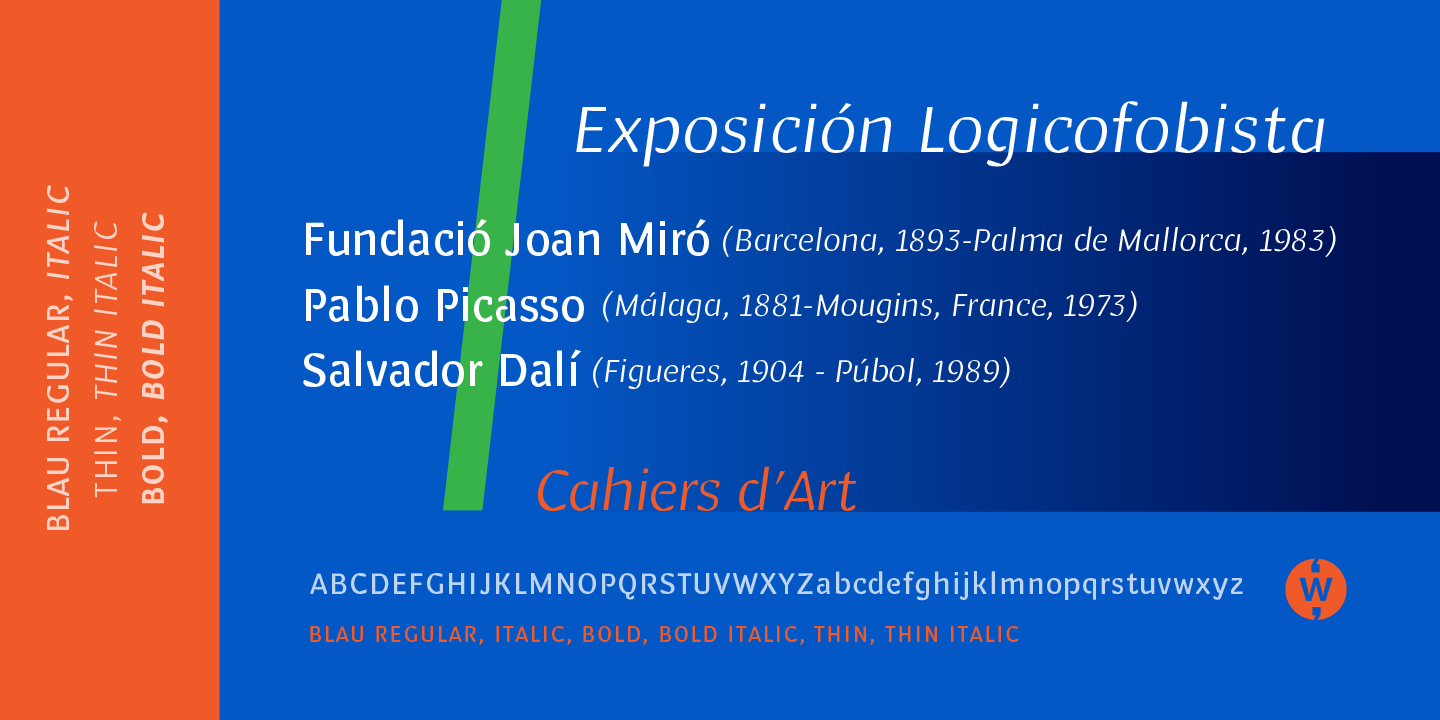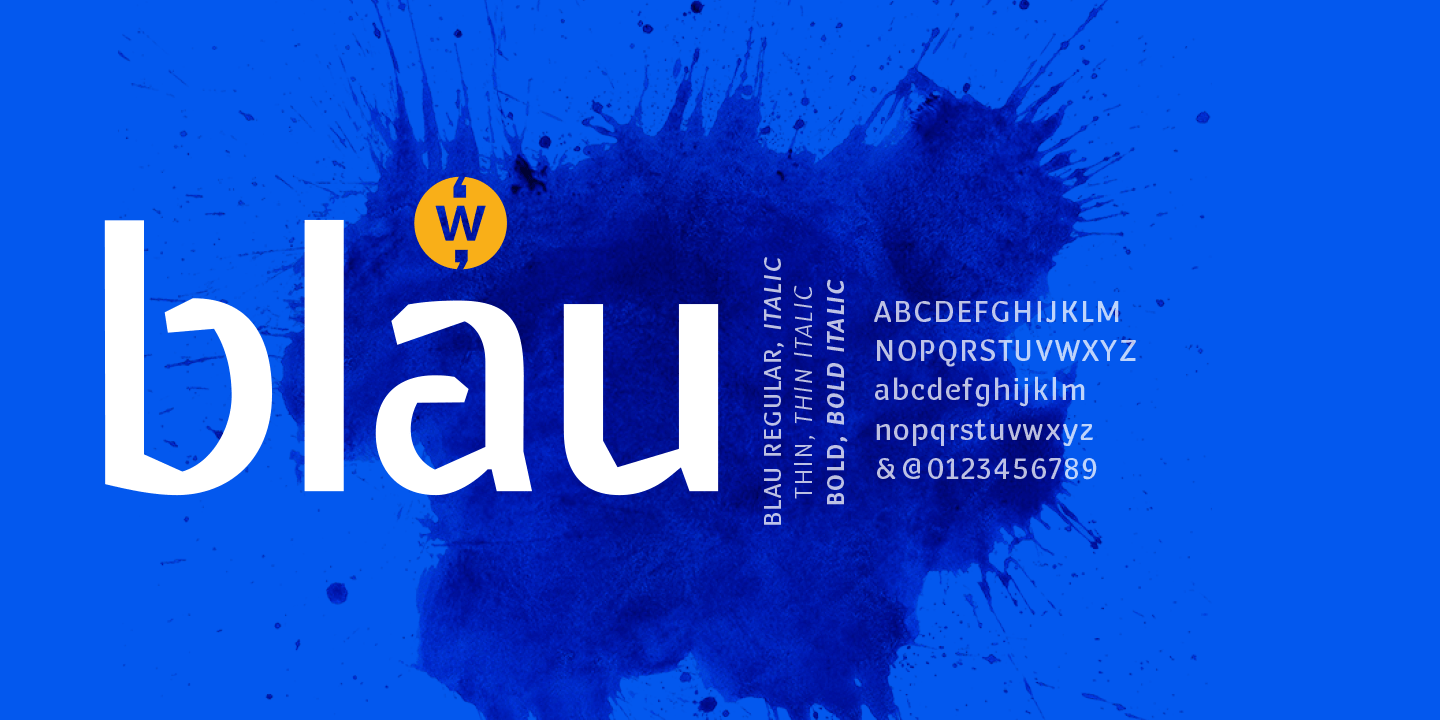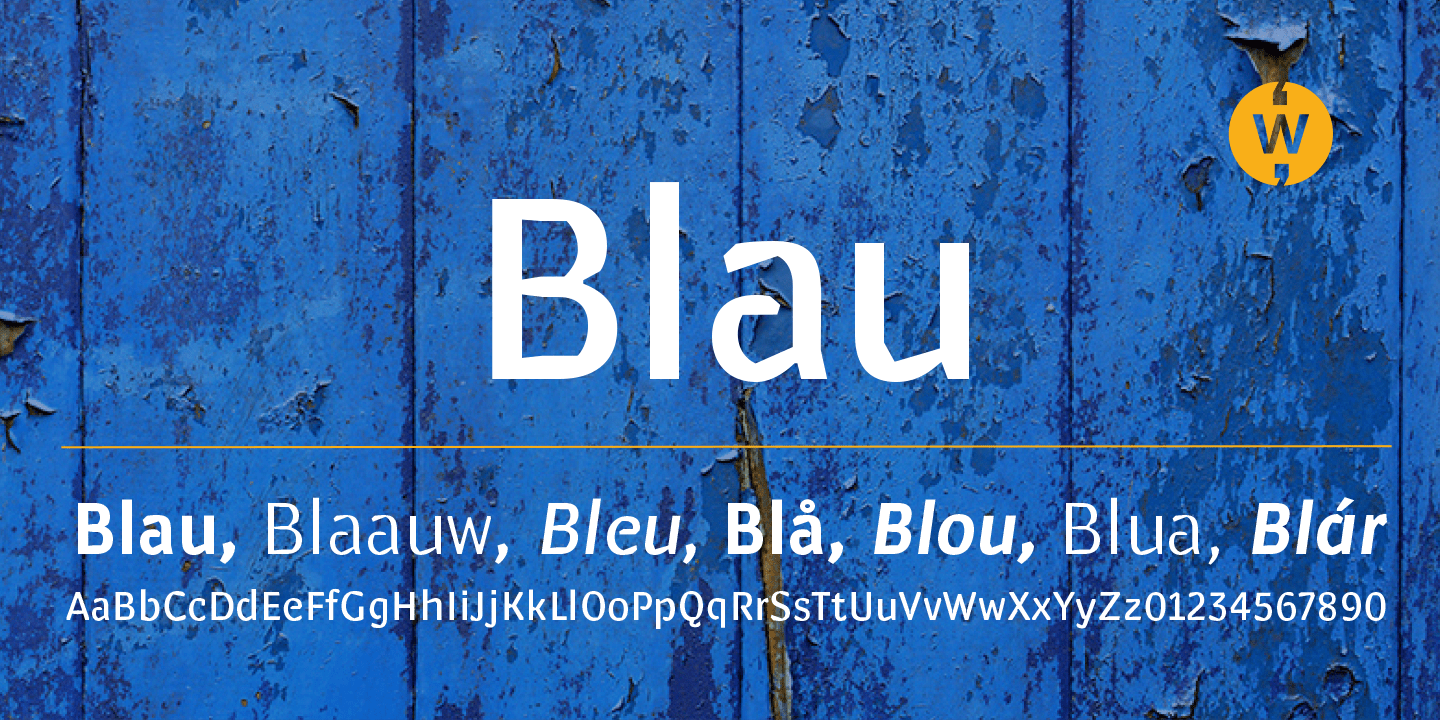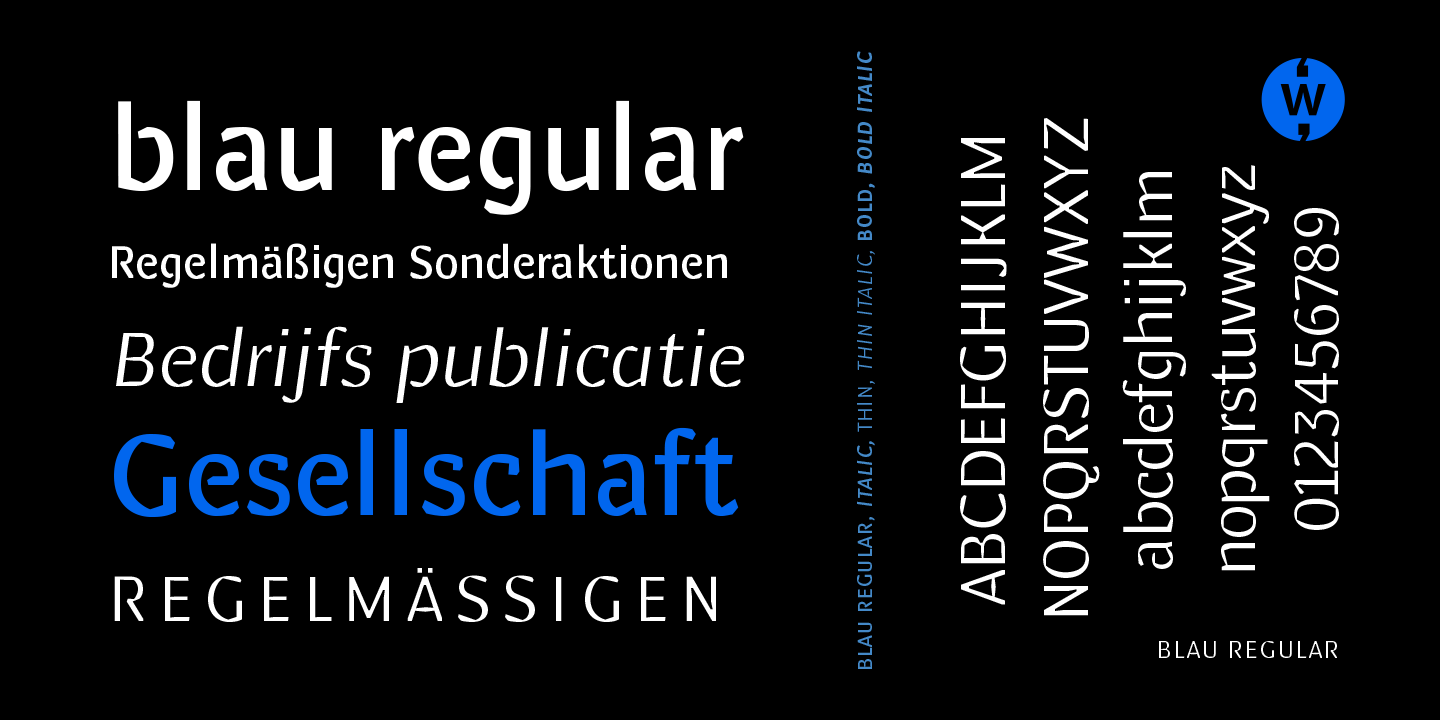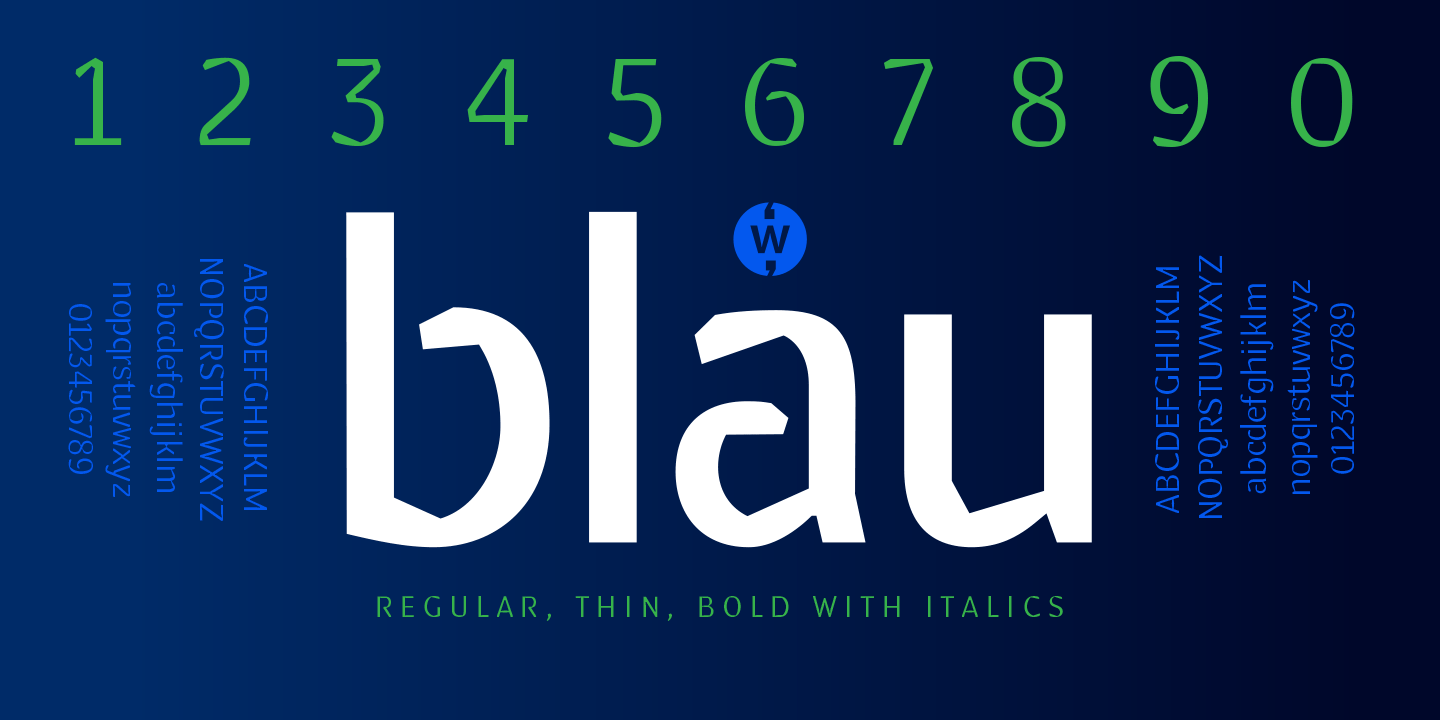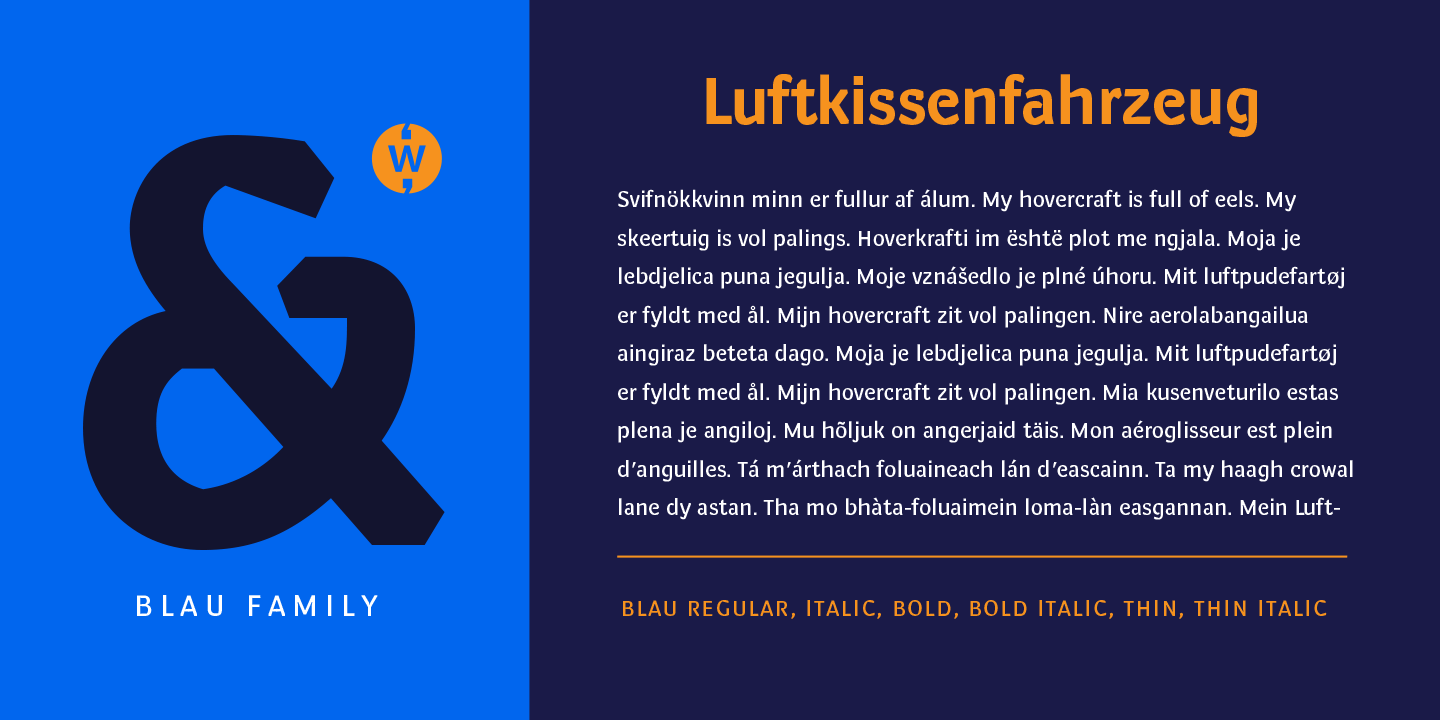
Blau
Font Family by Wilton Foundry
Designed with a hand-chiseled feel, Blau's sculpted characters add a refined personality to a wide range of brand, corporate, product and service applications. Highlighting the sculpted theme, inkwell treatment variations are prevalent throughout Blau, with several key glyphs that are stenciled for increased legibility.
This sturdy, typographic workhorse shines when a slightly unorthodox typographic approach is required ? a prime choice for distinctive and dynamic logotype use.
The Blau family is available in Light, Light Italic, Regular, Italic, Bold and Bold Italic.